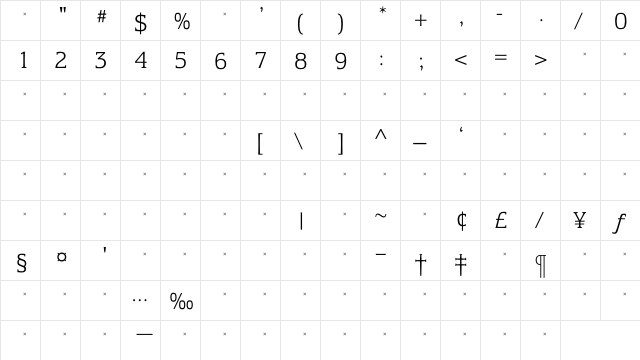
EquestrienneLightTab Regular
Design Context for EquestrienneLightTab Typeface
EquestrienneLightTab is a composed and adaptable typeface that performs quietly and consistently across a wide range of design contexts. The delicate stroke weight brings airiness and refinement to layouts.